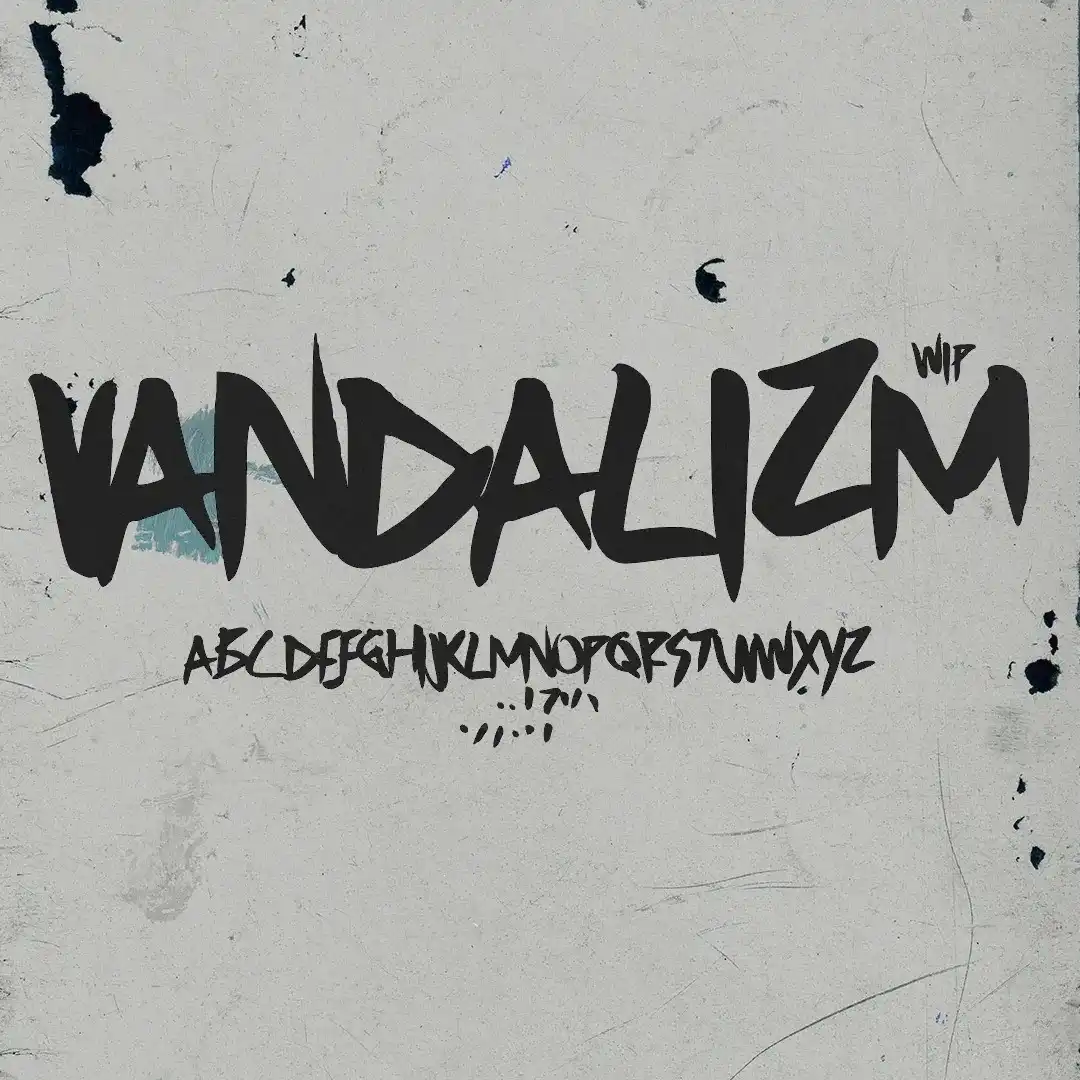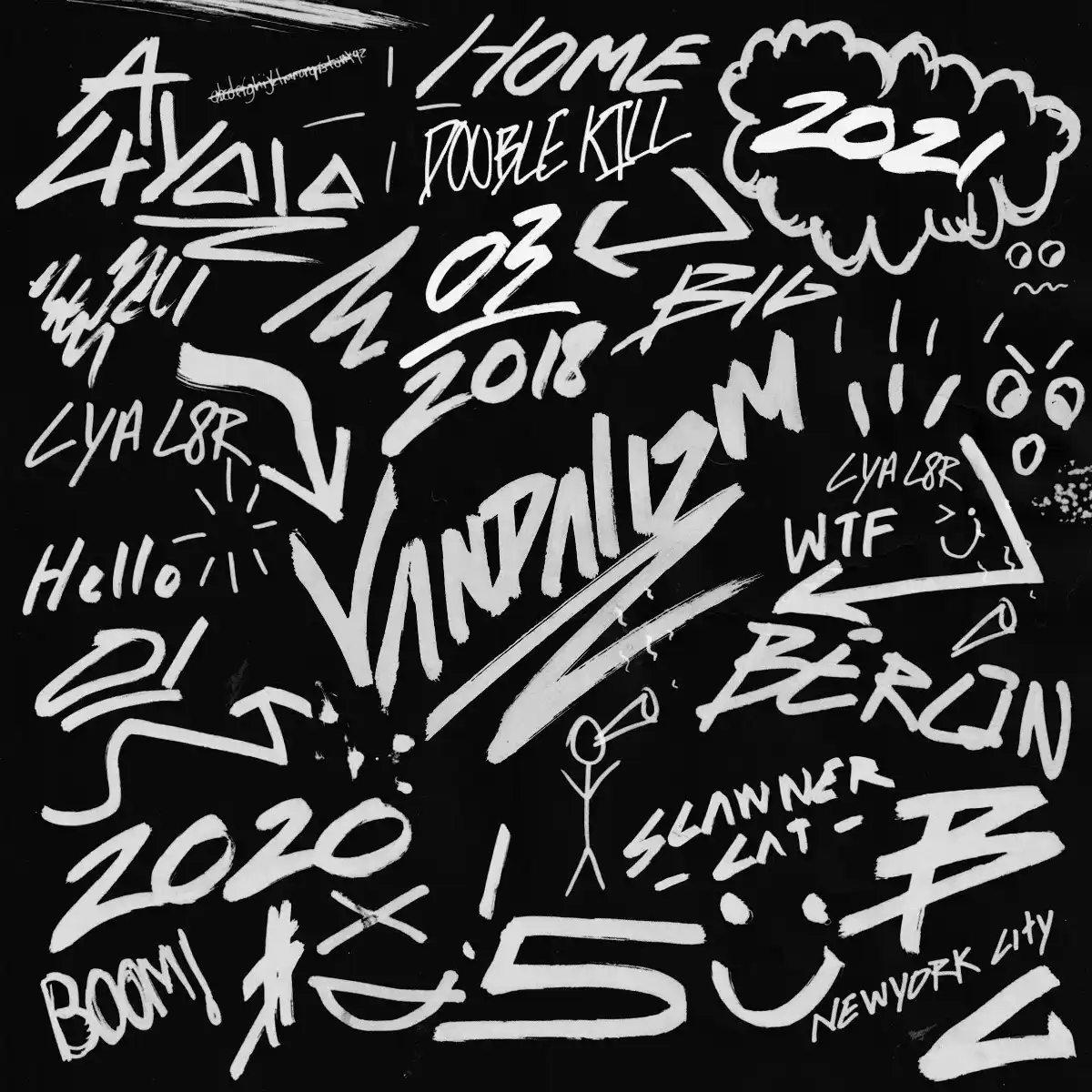
This digital download features the edgy and bold Vandalizm Font, perfect for your next creative project! 🎨 Whether you’re designing a poster, crafting a logo, or simply looking to add a unique touch to your work, this font is your go-to choice. With instant access, you can start using it right away!
The Vandalizm Font embodies the spirit of street art and urban culture, bringing a fresh vibe to any design. Its experimental and bold characteristics make it stand out, ensuring your work captures attention. 🖌️
- Unique Design: The font’s graffiti-inspired style adds an edgy element to your projects, making them memorable.
- Versatile Usage: Perfect for various applications, from branding to personal art projects, allowing for creative expression.
This font is ideal for graphic designers, street artists, brand creators, and anyone looking to add a touch of urban flair to their work. 🌆